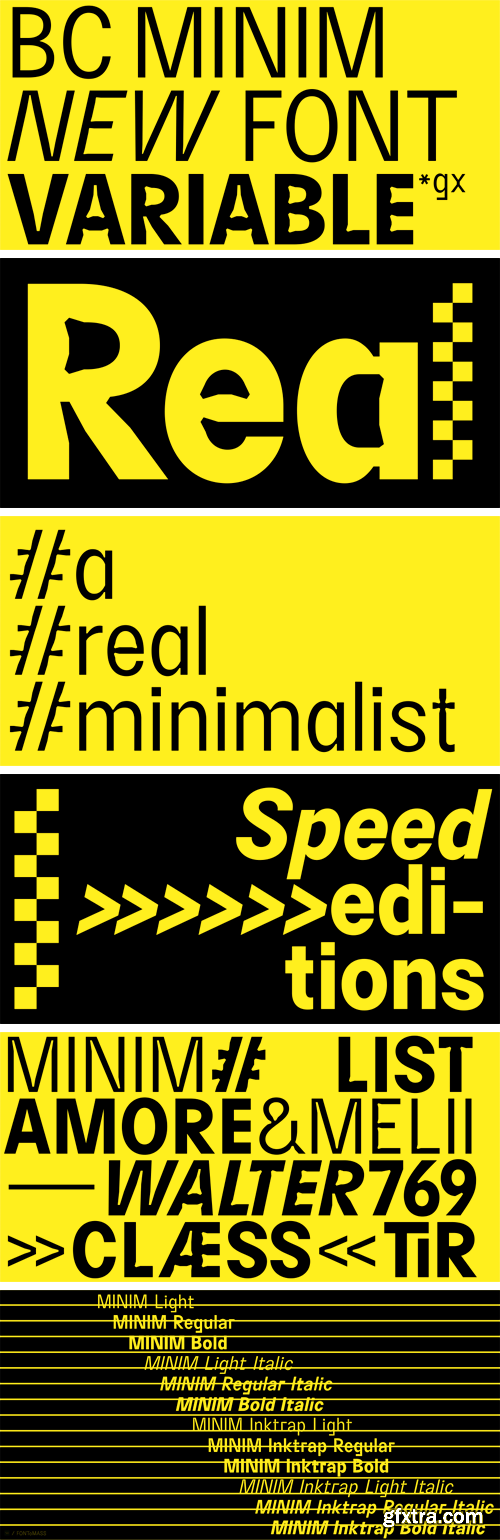
BC Minim Font Family
Minim is something of a hybrid which attempts to explore the possibilities of the variable format, balancing between the analogue past and digital future, standing precisely on the line between readable type and letter experiment.
Minim is a variable font designed for typesetting at miniature type sizes. Its drawing is based on knowledge gained from setting and printing metal letters; small defects often occurred, most often when pouring ink over the characters. These errors gave rise to ink traps, i.e. mechanically expanded spaces for ink or black colour to physically and optically pour into. Although ink traps are unusable for their original purpose in a digital environment (there’s no ink to pour), other problems emerge in displaying characters and their readability, which must be preceded by the construction of the characters themselves. Several examples of typefaces that are technically subordinate to readability can be found in recent history. This starts with the Bell Centennial typeface (1978, Matthew Carter) for extremely dense text in the telephone directories of the AT&T Corporation, which is optimised for reading micro texts by markedly narrowing the characters and using pronounced ink traps, and continues to Georgia (1993, Matthew Carter) and Verdana (1996, Matthew Carter) designed directly and primarily for reading on monitors and computer screens, to fonts subordinate to the greatest possible readability on the web. A highly-developed solution was presented by Frere-Jones Type, with their Retina MicroPlus font (2016, Tobias Frere-Jones). Extremely reduced character shapes for sizes from 4pt to 2pt (!) were then presented by the French typographer Thomas Huot-Marchand with the Minuscule font (2002–5, Thomas Huot-Marchand). The drawing of the Minim typeface was created mathematically on the basis of a square pixel grid. The smallest number of pixels that do not subject the character to deformation is a grid of squares 7 squares high for medium height and 10 squares for capital sizes. The default weight for forming and verifying the pixel base was Minim Light, then the drawings were converted from a pixel base to outlines. Later modifications of the typeface have already moved away from a literal grid of squares, and a new, modified drawing of a linear sans-serif neo-grotesque has been created. The resulting drawing is, therefore, a compromise between a mathematical construction and optically balanced characters. For Minim, there are characteristic right-angled broken stems (“f, g, j, r, t, y”), which prevents the possibility of confusion with other characters (“y” versus “v” for example, or “j” and “i”) in small sizes. It also contains a standard stylistic set with rounded character drawings. Character recognition is aided by a higher x-height, angled dots for diacritics and punctuation, and a differing upper stroke for the number “1”. Some stems are deleted for darker characters (hashtag, percentage, fractions, ampersand). What emerges from the pixel grid is lighter, more spacious metrics. Minim approaches the issue of rendering with a great technical advantage – the variable font format, which enables precise typeface shapes to be generated for a specific size and, at the same time, to be taken to the greatest extremes in its drawing. In the case of the variable format, ink traps can be enlarged instantly or completely set into the drawing. Varying the notches goes in large part hand in hand with the technical use of the typeface. The fluctuating levels of print outputs from lower quality printers (such as at home) can be altered by the extent of enlarging or shrinking the notches so that the resulting print is as good as possible. Ink traps work with a certain similarity on the screen (optically), but on a different scale of course – they become more of an artistic bonus usable in display and headline sizes.